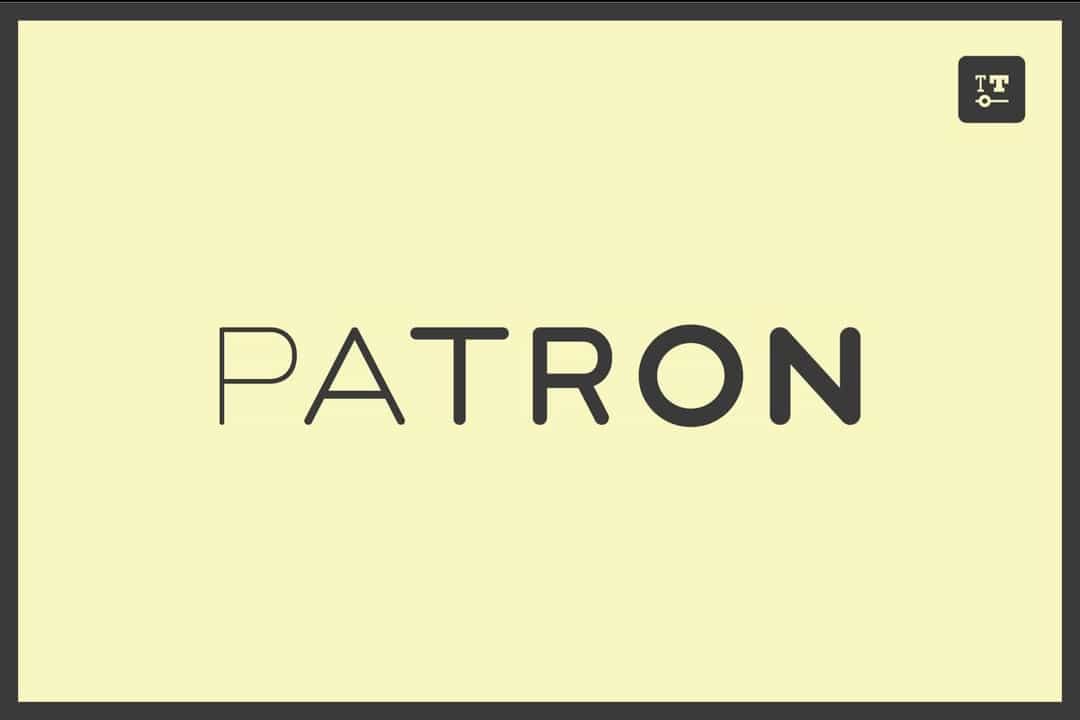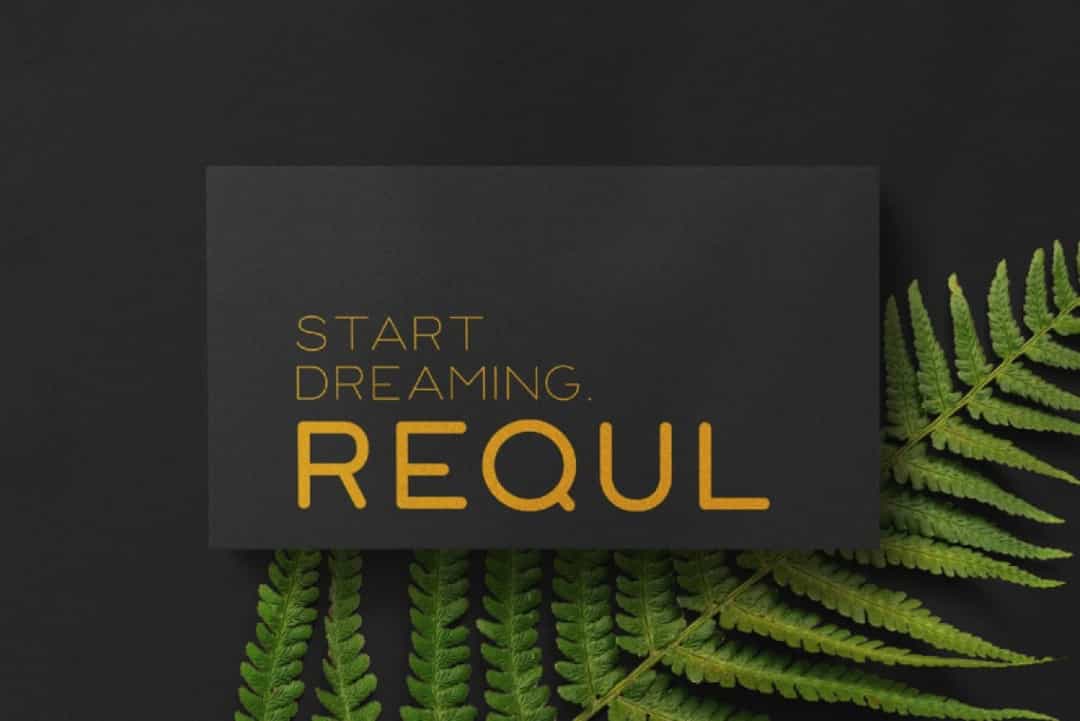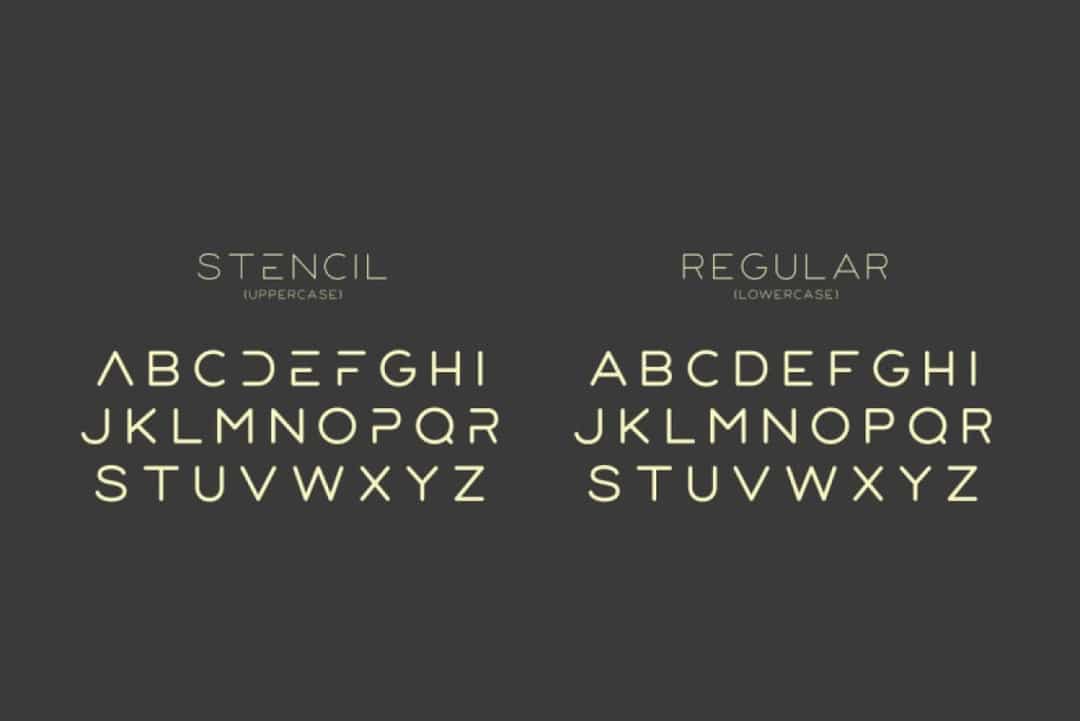
Discover Patron Font, part of the Sans Serif Personal collection—a versatile and unique font perfect for adding a personal touch to your projects. Download it for free and enjoy crafting designs with style, from invitations to social media posts. This font is available exclusively for personal use, giving you the freedom to create without limits. Unlock your creativity with Patron Font today!
Patronis is a clean monolinear sans-serif typeface with a variable font weight, and rounded corners of the letters’ contours. Suits for logos, invitations, branding headlines and other marketing materials; to give the industrial feel use capital letters and stencils as stencils.